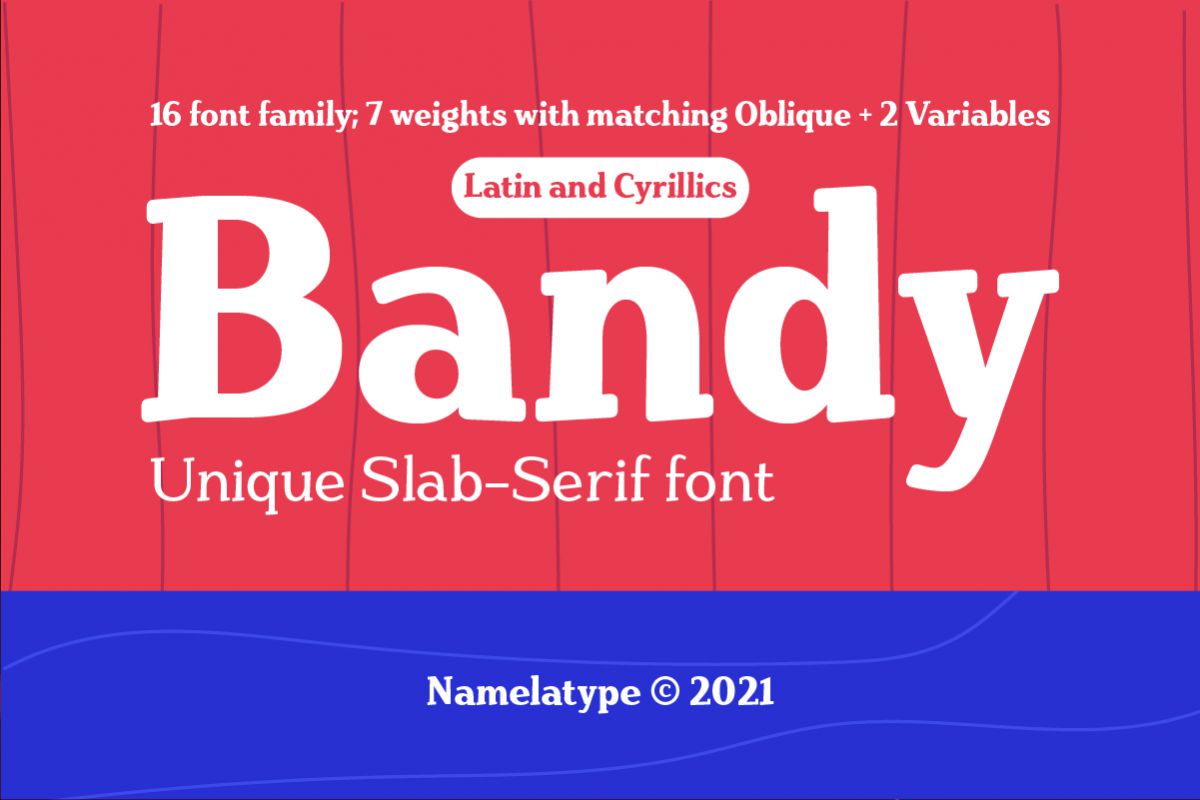
Bandy Extra Bold Oblique
Bandy Font - A Retro Slab-Serif Typeface for Branding & Social Media Some typefaces play it safe. Bandy is not one of them. As a retro slab serif font with rounded, slightly curved letterforms, Bandy occupies a distinctive space in the modern typography landscape—bold enough to anchor a brand identity, yet smooth enough to remain friendly and approachable. Published by Namelatype, Bandy Retro Slab-Serif Font is designed for creators who want their work to stand out—not through gimmicks, but th